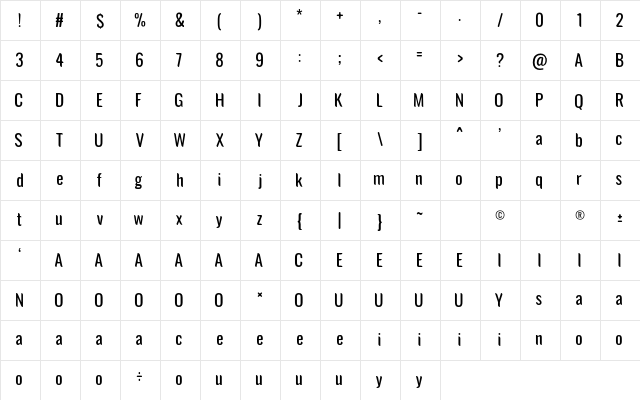
Avatarock Regular
Design Context for Avatarock Typeface
Avatarock is a composed and adaptable typeface that performs quietly and consistently across a wide range of design contexts.
Pro Tip: Use Avatarock in both headline and body roles to test its range before committing to a single application.